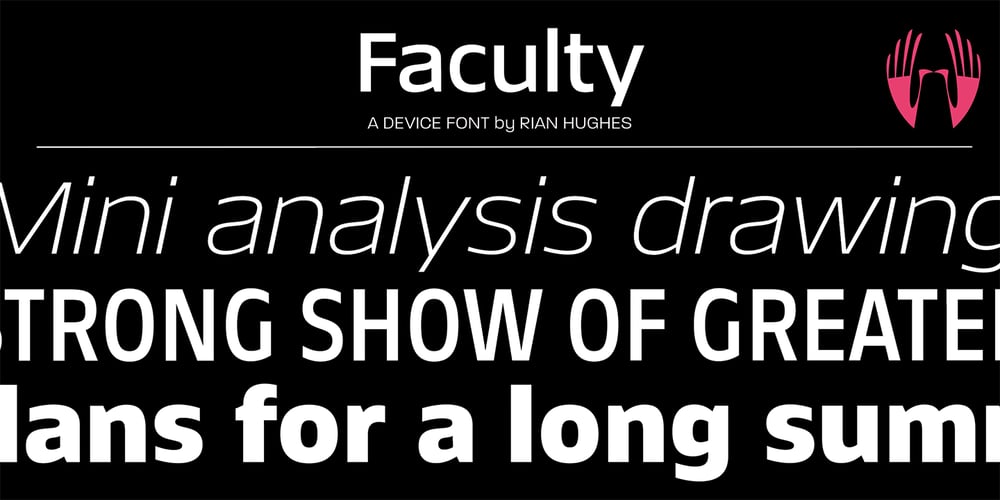
Faculty
Faculty font
Faculty Font Family was designed by Rian Hughes and published by Device. Faculty contains 28 styles and family package options. Faculty is a robust, warm and rational sans, with a large x-height that lends clarity in text and headline. Functional, clear and authoritative, it still has character. Stroke terminals are cut vertically or horizontally, minimising inter-letter gaps and lending it an even ‘colour’ in extended settings. Suitable for both headlines and text, the family has extensive language support, alternative characters, lining, tabular and old style numerals, making it a versatile all-purpose type system.